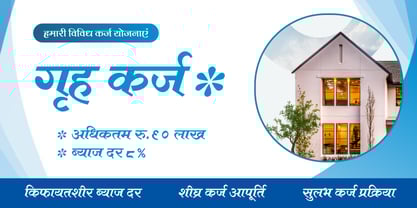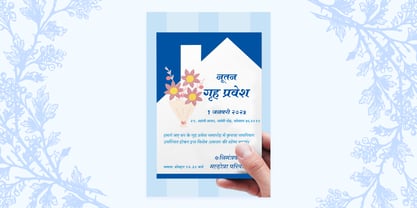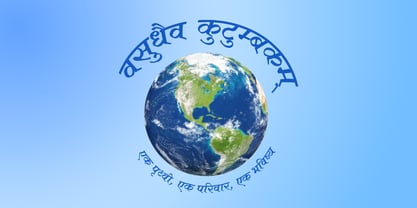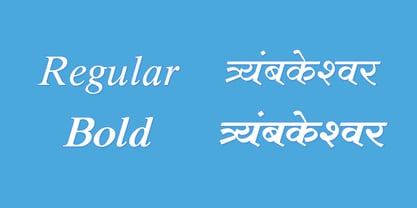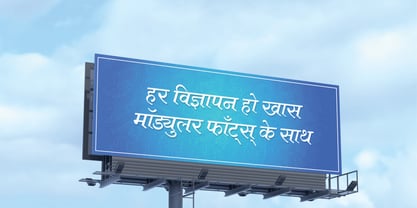
Shree Devanagari 0700
von Modular InfoTech
Die Schriftfamilie Shree Devanagari 0700 wurde von Modular Infotech entworfen und von Modular InfoTech veröffentlicht. Shree Devanagari 0700 enthält 4 Stile und Familienpaketoptionen.
Shree Devanagari 0700 is an elegant script font. The family contains 2 weights-Regular & Bold with corresponding Italics.
This typeface carries a refined and graceful personality, polished for both modern and traditional use. Its forward-slanting design brings rhythm, movement, and a sense of expressiveness that feels lively on the page. Inspired by natural handwriting, it introduces warmth and authenticity while maintaining clarity. The smooth, flowing stroke connections create visual harmony, and the moderate contrast between thick and thin strokes adds subtle depth without sacrificing readability at smaller pointsizes. It also supports maximum conjuncts, ensuring authentic script rendering.
It is best suited for documentation, book covers and invitations, where elegance and emphasis are required. In editorial layouts such as magazines and journals, it adds sophistication and style. Decorative titles, chapter openings, and poetic literature benefit from its expressive nature. It also adapts beautifully for graceful branding projects, logos, and packaging that seek a premium, stylish appeal.